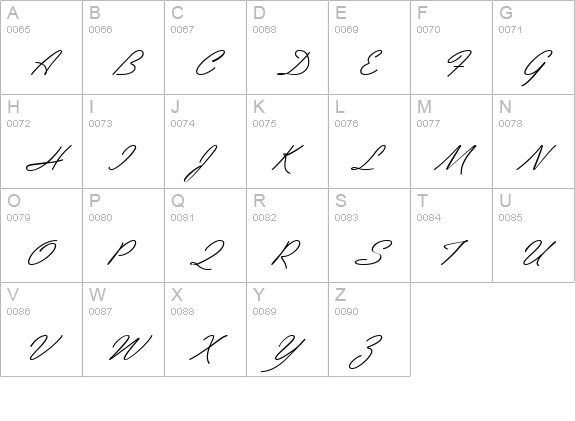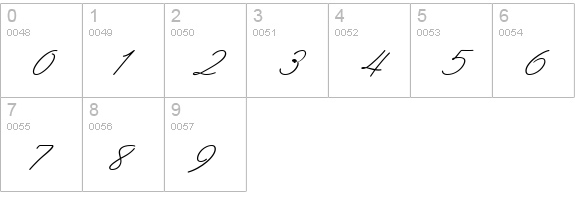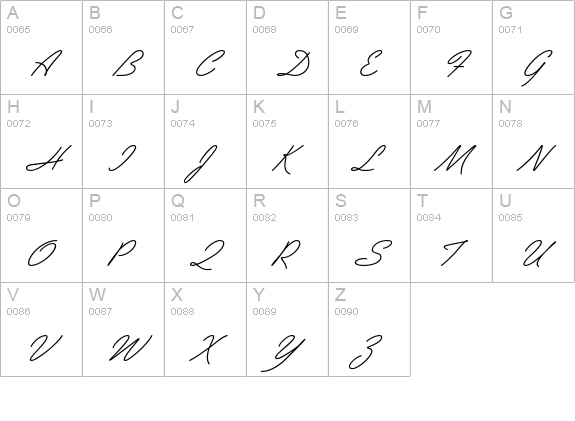
Abrazo Script SSi Italic Font Details
Abrazo Script SSi Italic is a distinctive, italic variant in the Abrazo typeface family \xE2\x80\x94 well suited to design and typography projects.
Abrazo Script SSi Italic font is a beautifully designed typeface that exudes elegance and sophistication. Its flowing curves and stylish letterforms make it a perfect choice for adding a touch of luxury to your designs. The italic style adds a sense of dynamism and flair, making it ideal for projects that require a touch of creativity. The Abrazo Script SSi Italic font is available for free download at FontsMarket.com, allowing you to access this stunning typeface without any cost. Whether you're working on branding, invitations, or any other design project, this font will elevate your work and give it a unique and polished look. Don't miss out on the opportunity to enhance your designs with this beautiful and versatile font, available for free at FontsMarket.com.